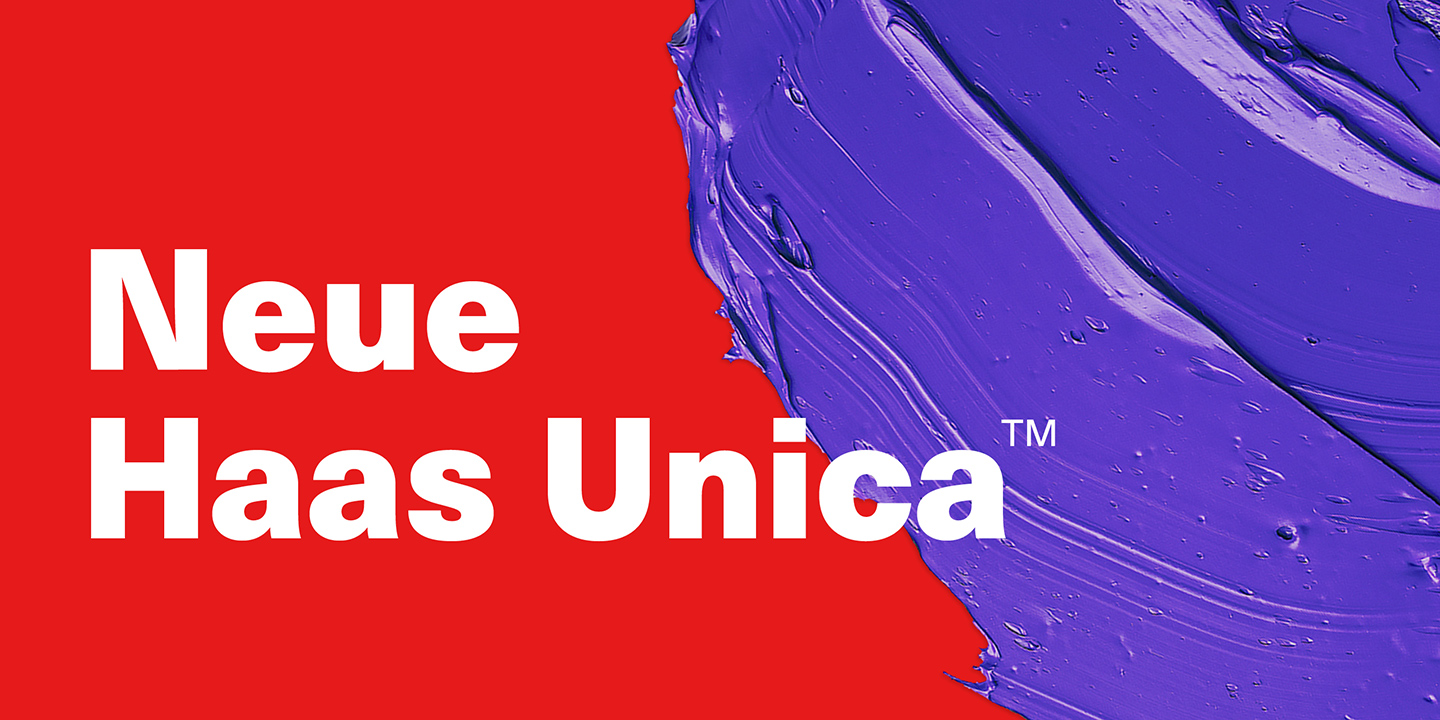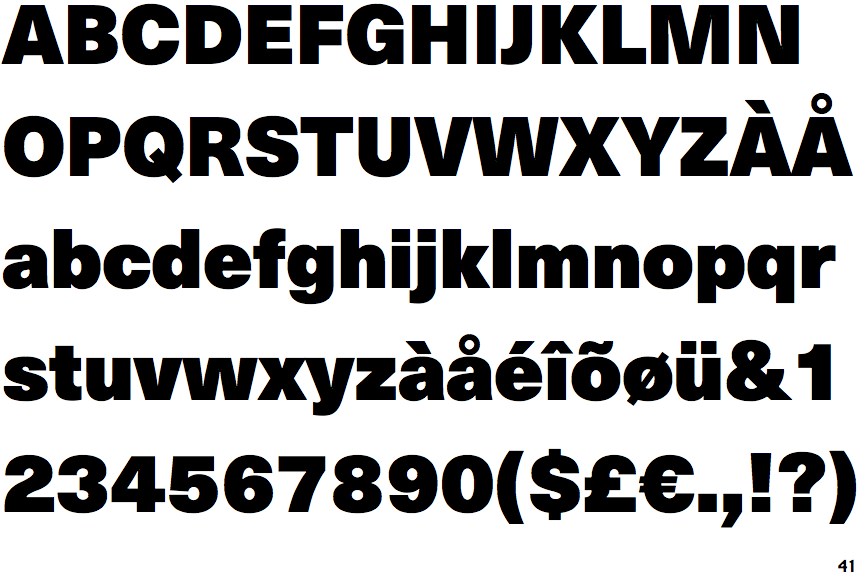
Neue Haas Font
Neue Haas Font - The first 4 typefaces were all designed decades ago and have withstood the test of time. Web neue haas grotesk font. Neue haas unica™ is monotype’s revival of a typeface that has attained almost mythical status in the type community. Following two members are added to the neue haas grotesk text pro font family. Neue haas grotesk, itc avant garde gothic, futura pt, bodoni, and le monde livre. Windows 10 version 1703 released on april 05, 2017. Web my selection consists of 5 classic typefaces: Web neue haas grotesk text pro bold italic.
Neue haas unica™ is monotype’s revival of a typeface that has attained almost mythical status in the type community. The first 4 typefaces were all designed decades ago and have withstood the test of time. Neue haas grotesk, itc avant garde gothic, futura pt, bodoni, and le monde livre. Web my selection consists of 5 classic typefaces: Following two members are added to the neue haas grotesk text pro font family. Windows 10 version 1703 released on april 05, 2017. Web neue haas grotesk font. Web neue haas grotesk text pro bold italic.
Web my selection consists of 5 classic typefaces: Web neue haas grotesk text pro bold italic. Following two members are added to the neue haas grotesk text pro font family. Web neue haas grotesk font. The first 4 typefaces were all designed decades ago and have withstood the test of time. Neue haas unica™ is monotype’s revival of a typeface that has attained almost mythical status in the type community. Windows 10 version 1703 released on april 05, 2017. Neue haas grotesk, itc avant garde gothic, futura pt, bodoni, and le monde livre.
Neue haas unica pro font muslivirtual
Windows 10 version 1703 released on april 05, 2017. Web neue haas grotesk text pro bold italic. Web my selection consists of 5 classic typefaces: Neue haas grotesk, itc avant garde gothic, futura pt, bodoni, and le monde livre. Following two members are added to the neue haas grotesk text pro font family.
Neue Haas Grotesk Font Fonts Hut
Following two members are added to the neue haas grotesk text pro font family. Neue haas grotesk, itc avant garde gothic, futura pt, bodoni, and le monde livre. Neue haas unica™ is monotype’s revival of a typeface that has attained almost mythical status in the type community. Web my selection consists of 5 classic typefaces: Web neue haas grotesk font.
Windows 10 version 1703 released on april 05, 2017. Neue haas unica™ is monotype’s revival of a typeface that has attained almost mythical status in the type community. Web neue haas grotesk font. Following two members are added to the neue haas grotesk text pro font family. The first 4 typefaces were all designed decades ago and have withstood the.
Neue Haas Grotesk Pro Display 25 Thin Fonts
Web neue haas grotesk font. Following two members are added to the neue haas grotesk text pro font family. The first 4 typefaces were all designed decades ago and have withstood the test of time. Neue haas unica™ is monotype’s revival of a typeface that has attained almost mythical status in the type community. Web neue haas grotesk text pro.
Neue Haas Grotesk Fonts Shmonts
Web my selection consists of 5 classic typefaces: Web neue haas grotesk text pro bold italic. Following two members are added to the neue haas grotesk text pro font family. The first 4 typefaces were all designed decades ago and have withstood the test of time. Neue haas grotesk, itc avant garde gothic, futura pt, bodoni, and le monde livre.
Neue haas grotesk, itc avant garde gothic, futura pt, bodoni, and le monde livre. The first 4 typefaces were all designed decades ago and have withstood the test of time. Following two members are added to the neue haas grotesk text pro font family. Neue haas unica™ is monotype’s revival of a typeface that has attained almost mythical status in.
Identifont Neue Haas Unica Extra Black
Following two members are added to the neue haas grotesk text pro font family. Windows 10 version 1703 released on april 05, 2017. Web neue haas grotesk text pro bold italic. The first 4 typefaces were all designed decades ago and have withstood the test of time. Web neue haas grotesk font.
Neue Haas Grotesk Font Dafont Free
Windows 10 version 1703 released on april 05, 2017. Web neue haas grotesk font. Web neue haas grotesk text pro bold italic. Neue haas grotesk, itc avant garde gothic, futura pt, bodoni, and le monde livre. Neue haas unica™ is monotype’s revival of a typeface that has attained almost mythical status in the type community.
Neue Haas Grotesk Typographica
Web neue haas grotesk font. Windows 10 version 1703 released on april 05, 2017. Web neue haas grotesk text pro bold italic. Neue haas unica™ is monotype’s revival of a typeface that has attained almost mythical status in the type community. Following two members are added to the neue haas grotesk text pro font family.
Neue Haas Grotesk Font Free Download Free Fonts
Web my selection consists of 5 classic typefaces: Windows 10 version 1703 released on april 05, 2017. Neue haas grotesk, itc avant garde gothic, futura pt, bodoni, and le monde livre. Web neue haas grotesk font. Following two members are added to the neue haas grotesk text pro font family.
Web My Selection Consists Of 5 Classic Typefaces:
Web neue haas grotesk text pro bold italic. Windows 10 version 1703 released on april 05, 2017. Neue haas grotesk, itc avant garde gothic, futura pt, bodoni, and le monde livre. The first 4 typefaces were all designed decades ago and have withstood the test of time.
Following Two Members Are Added To The Neue Haas Grotesk Text Pro Font Family.
Web neue haas grotesk font. Neue haas unica™ is monotype’s revival of a typeface that has attained almost mythical status in the type community.